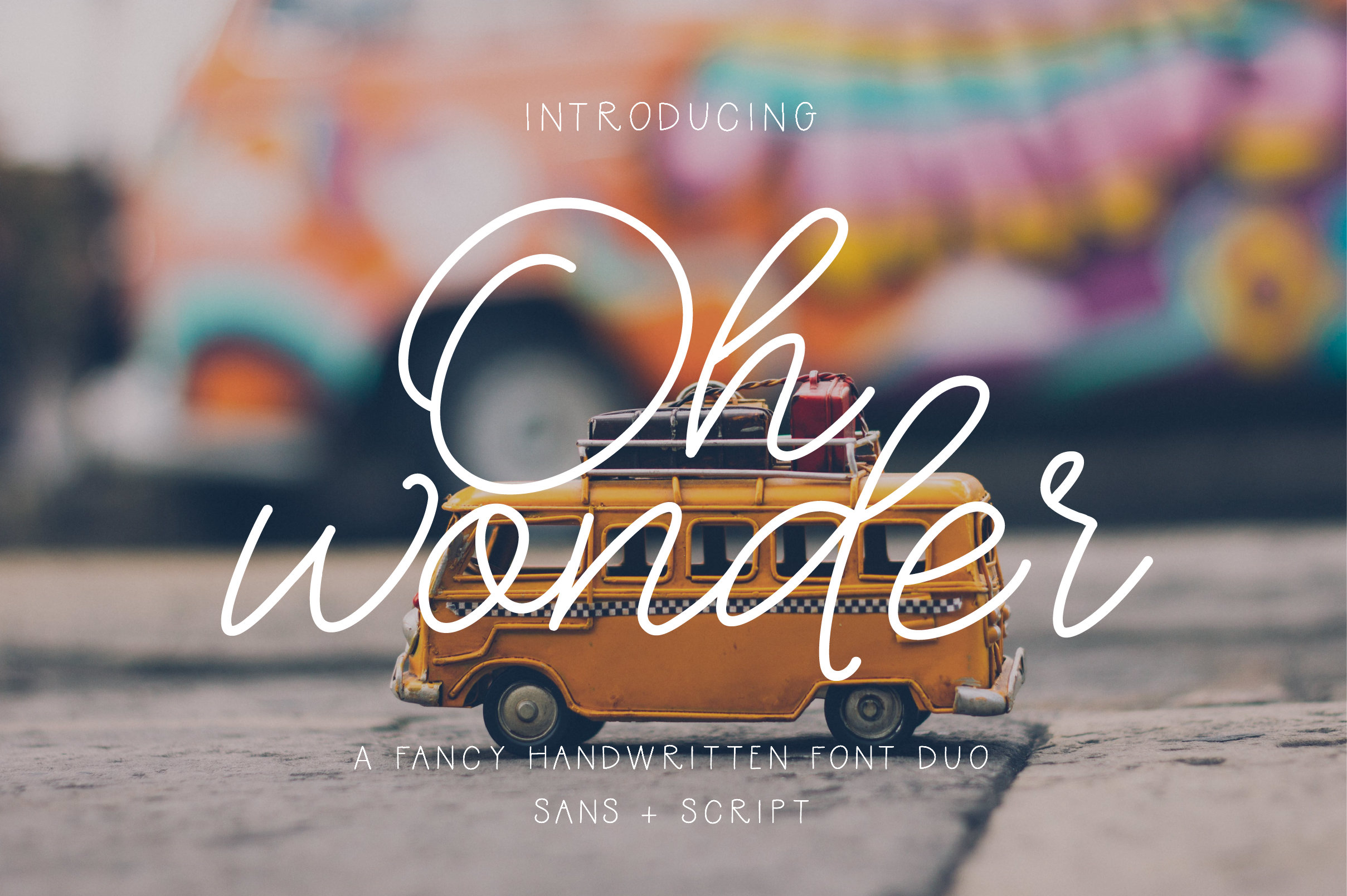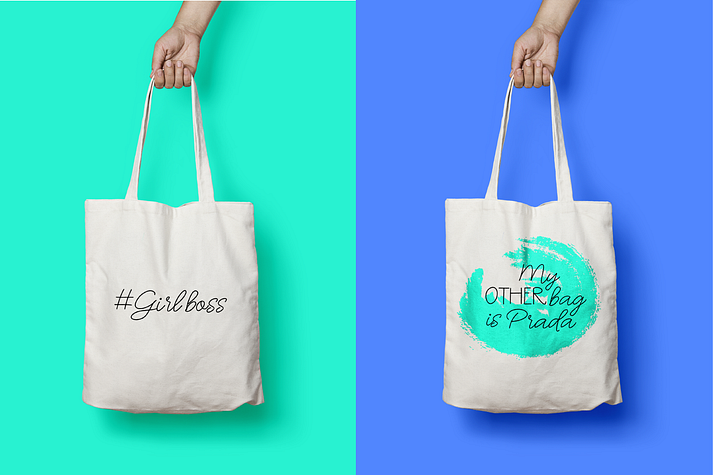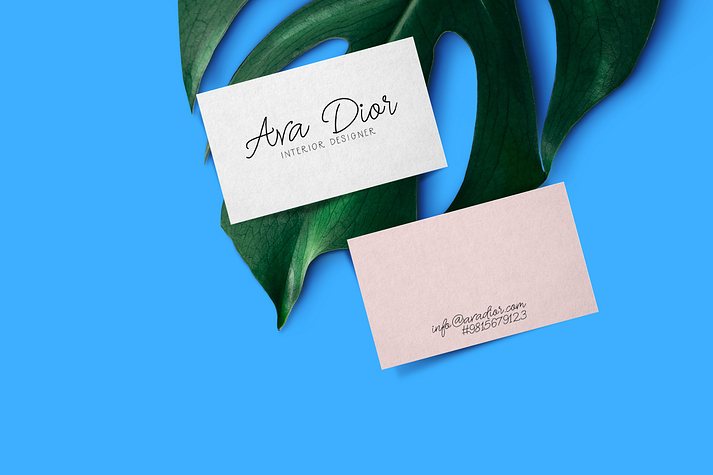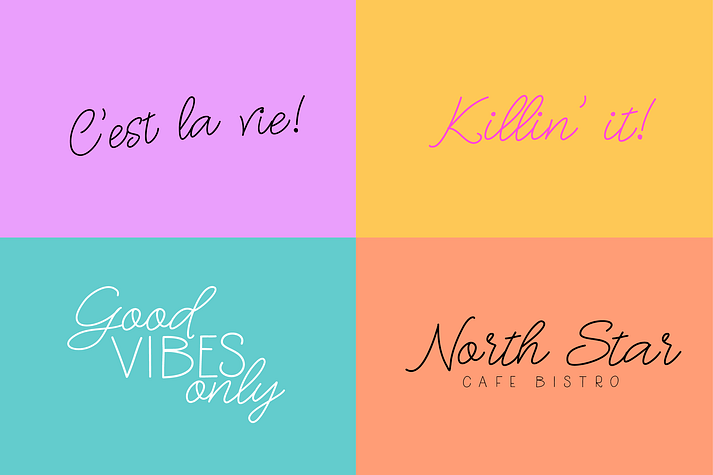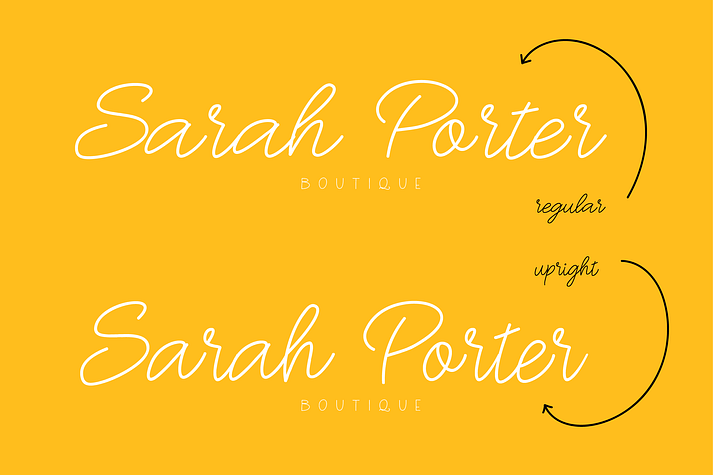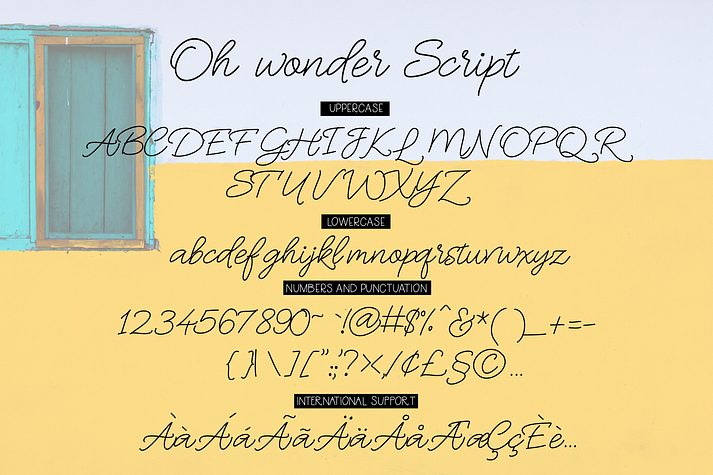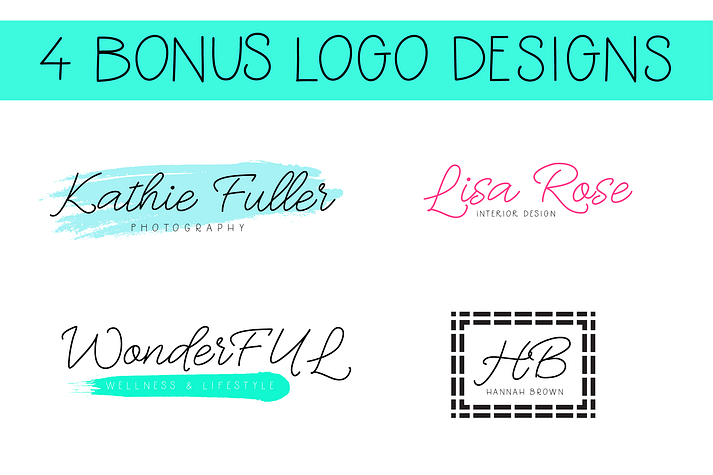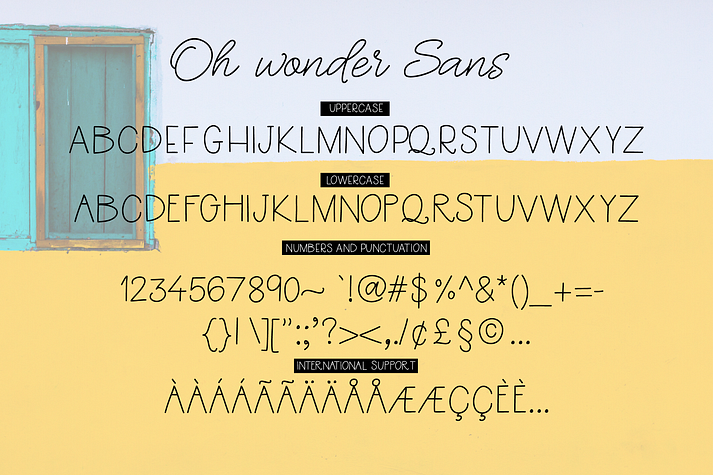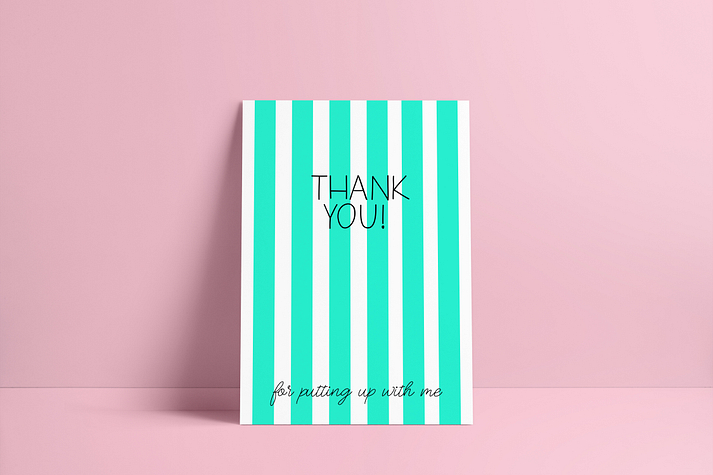
Oh Wonder is a hand drawn, sans serif and script font family. This typeface has four styles and was published by TheInkAffair.
Meet Oh Wonder, a two font family that includes a monoline fancy hand written cursive script and a monoline sans serif font, ideal for all things branding and packaging! Oh Wonder is perfect for greeting cards, logos, apparel designs, home decor, prints, quotes and so much more!
Bonus: You also get Oh wonder script in a different style - upright! ( See preview image 6 for reference ) Not just that. This font also includes 4 logo templates as a bonus!
Styles | Hand Drawn, Sans Serif, Script |